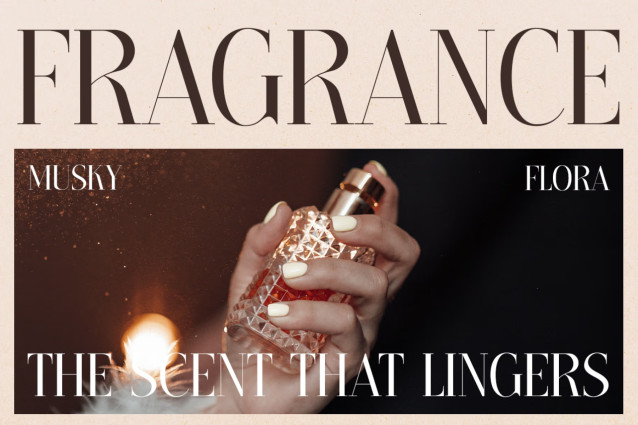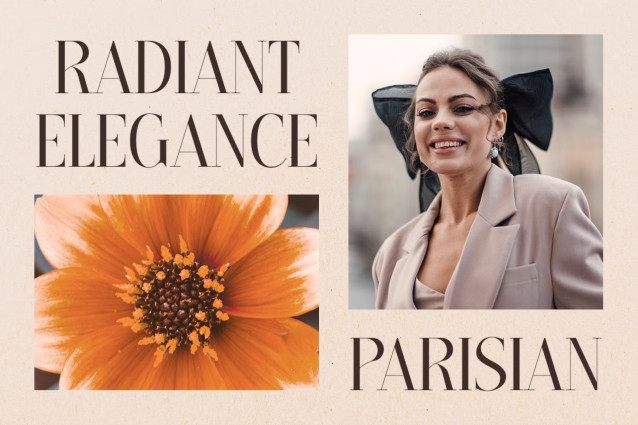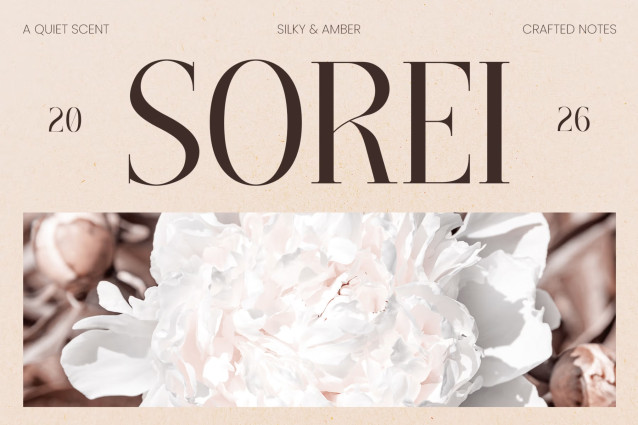
Instagram Font SOREI is a graceful serif font with a chic and luxurious aesthetic. At first glance, its elegant letterforms create a refined editorial feel. Moreover, the high-contrast strokes and slender shapes give every word a sophisticated touch. Meanwhile, its balanced proportions keep the design clean and easy to style.
As a result, SOREI adds instant elegance to headlines, branding, and social media content. In addition, it includes Multilingual Support for 67 Languages, making it suitable for creative projects worldwide.